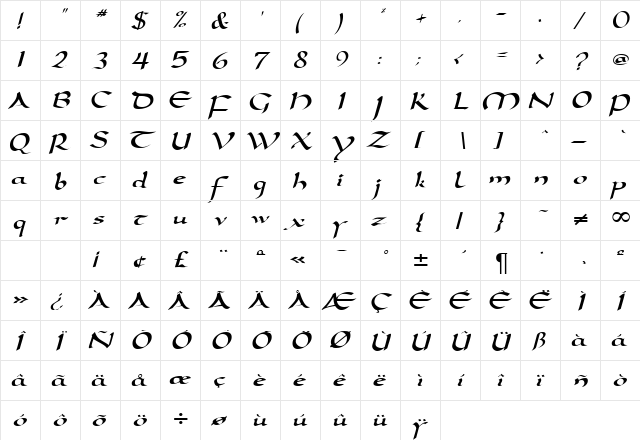
Dorita DB Regular
Design Context for Dorita DB Typeface
Dorita DB is a composed and adaptable typeface that performs quietly and consistently across a wide range of design contexts.